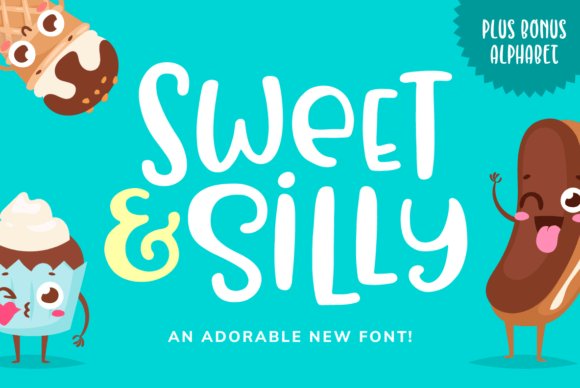
Introducing Sweet & Silly Font, the ultimate choice for adding a touch of charm and playfulness to your creative projects! Created by the talented Denise Chandler, this font is specifically designed to captivate and delight. Get ready to immerse yourself in a world of cuteness and creativity!
With its adorable and curly style, Sweet & Silly Font is the perfect companion for any children's book, nursery rhyme, or baby shower invitation. Each letter is meticulously crafted to bring a smile to your face, spreading joy and warmth with every stroke. Let your imagination run wild as you design captivating logos, eye-catching advertisements, and memorable branding materials.
But that's not all! As a special bonus, Sweet & Silly Font includes an exclusive alphabet, featuring English letters, just for fun! Unleash your creativity and explore endless possibilities with this unique addition. Whether you're creating personalized gifts, scrapbooking memories, or simply adding a touch of whimsy to your everyday life, this font has got you covered.
Embrace the power of visual storytelling and let Sweet & Silly Font weave its magic into your designs. Its versatility knows no bounds, making it an ideal choice for crafters, graphic designers, and DIY enthusiasts alike. Stand out from the crowd and leave a lasting impression with the help of this captivating font.
Sweet & Silly Font is more than just a font; it's an experience. It evokes feelings of joy, nostalgia, and innocence, instantly transporting you to a world filled with laughter and happiness. Let your projects come to life as this font adds a touch of whimsical charm that will make hearts skip a beat.
Get ready to elevate your creativity to new heights with Sweet & Silly Font. Its enchanting style and captivating presence will capture the attention of your audience, ensuring that your designs leave a lasting impact. Experience the magic for yourself and let Sweet & Silly Font be the secret ingredient that sets your creations apart.